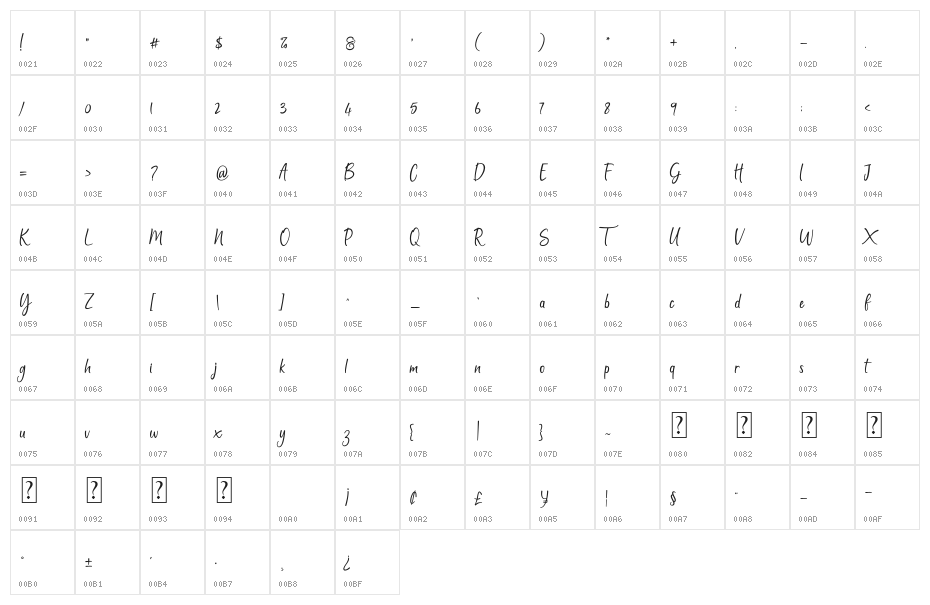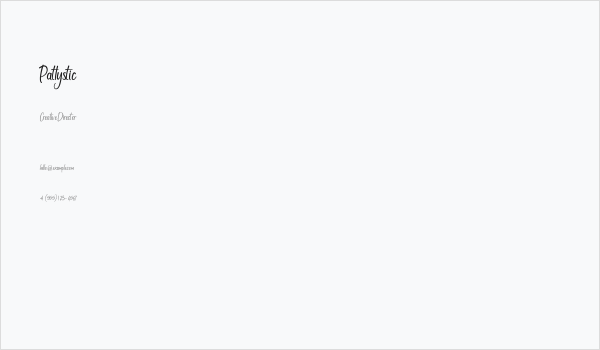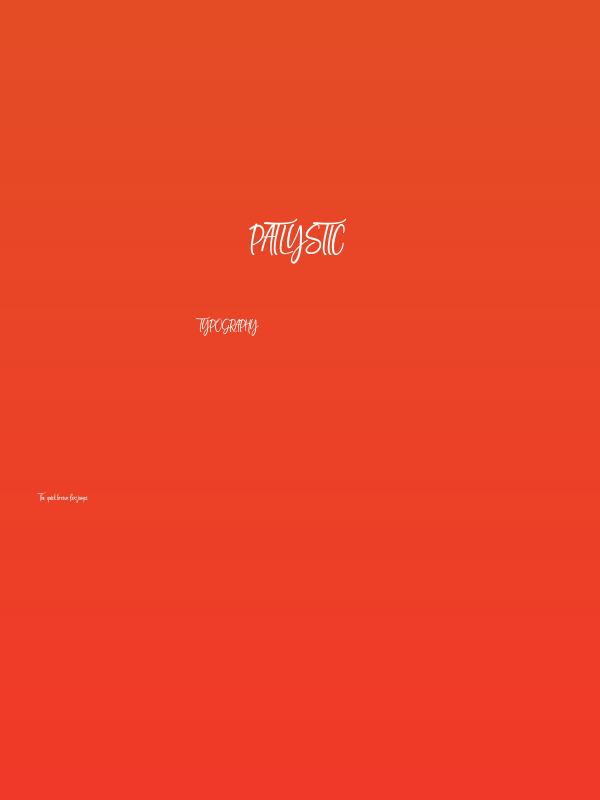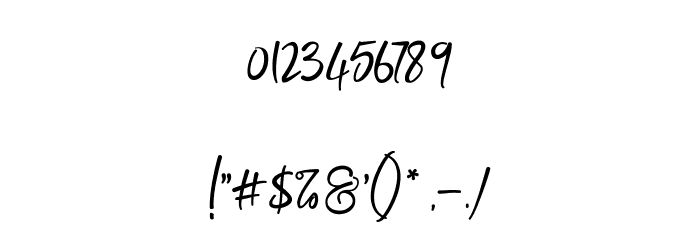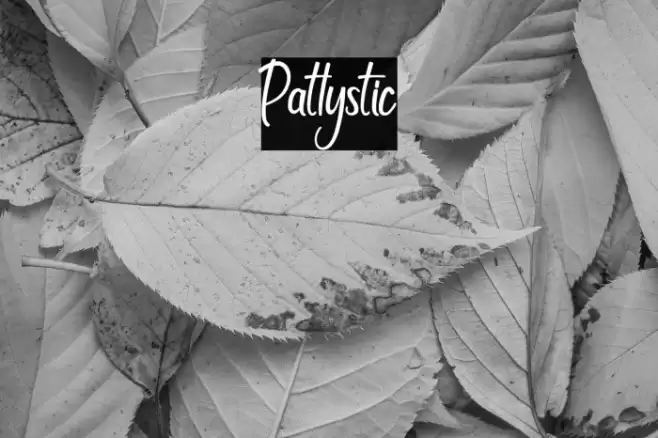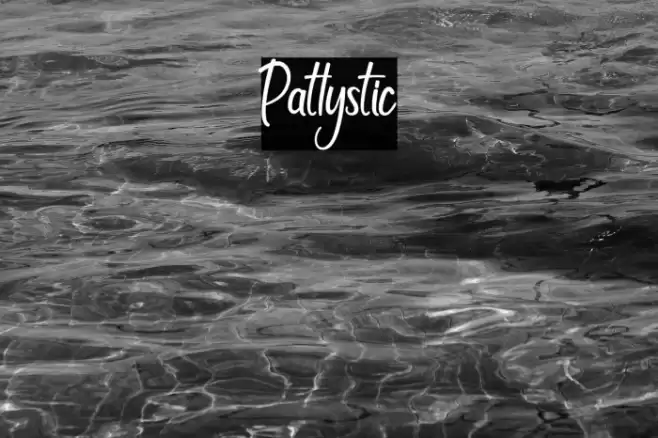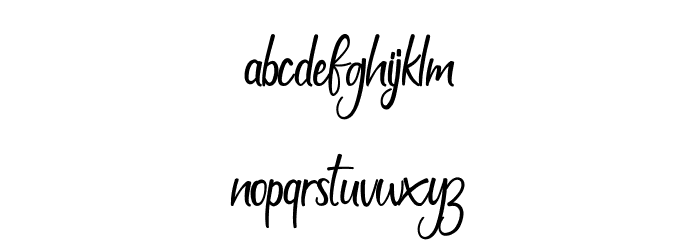
Patlystic Font
| Anwendungsfall | Logos, Invitations, Personal Branding |
| Vorgeschlagene Projekte | Ideal for wedding invitations, greeting cards, personal branding, and creative projects that require a touch of elegance and personality. |